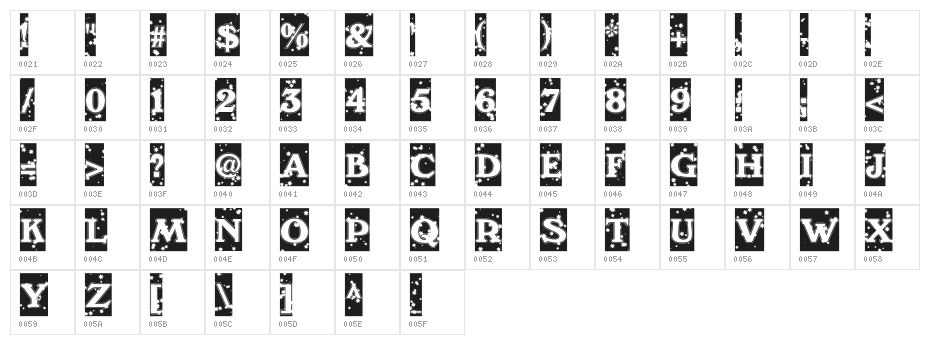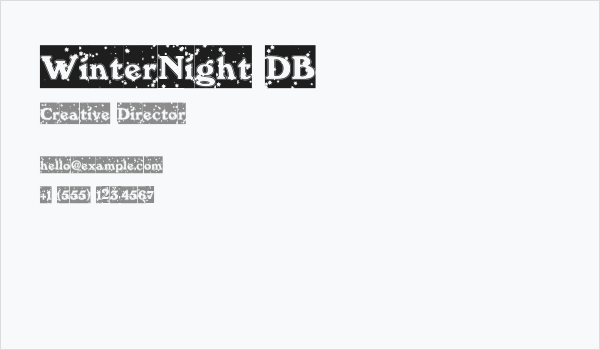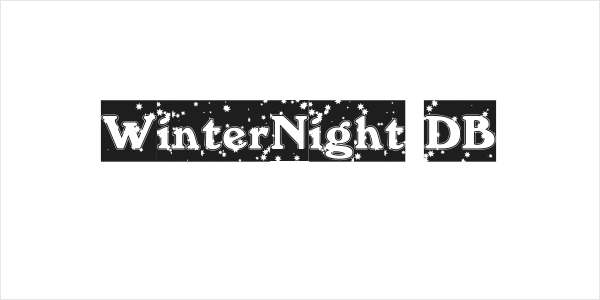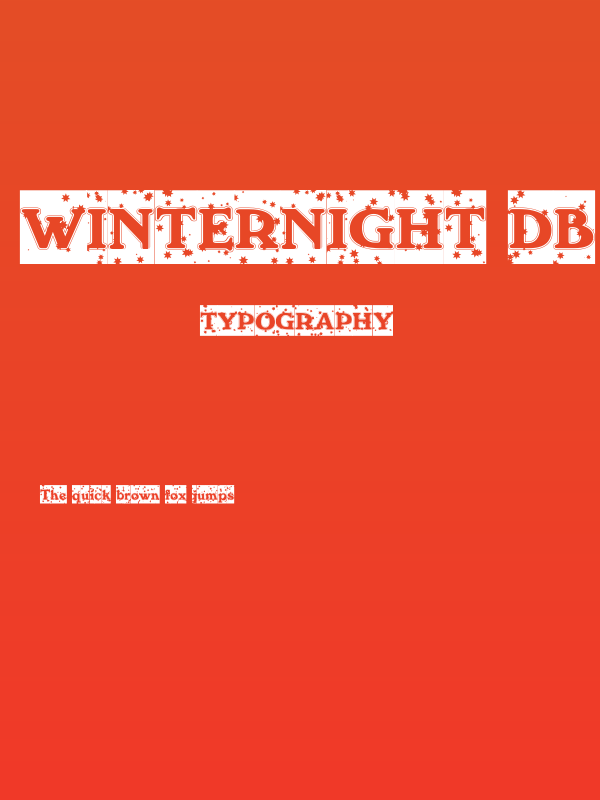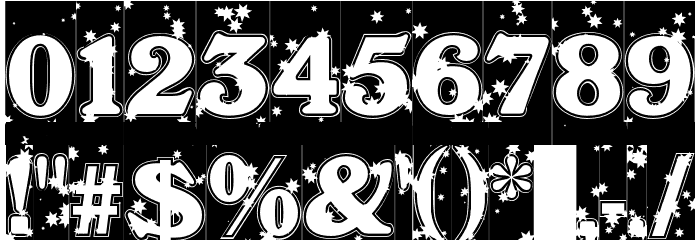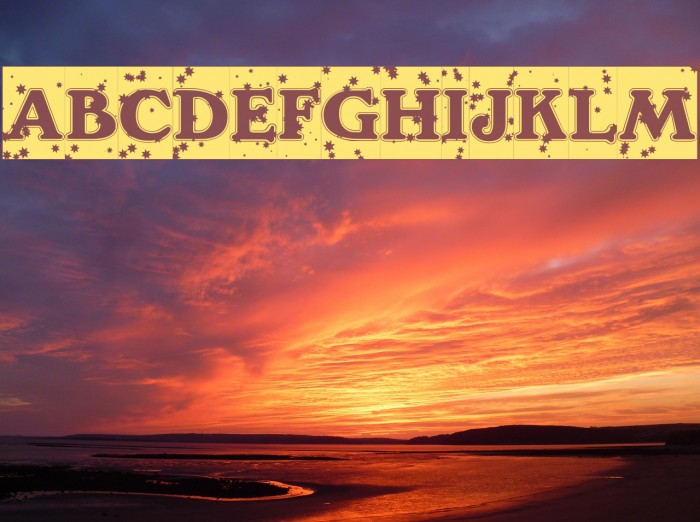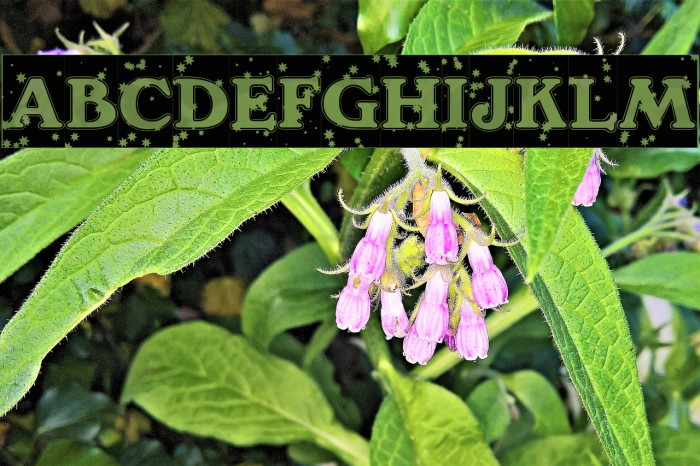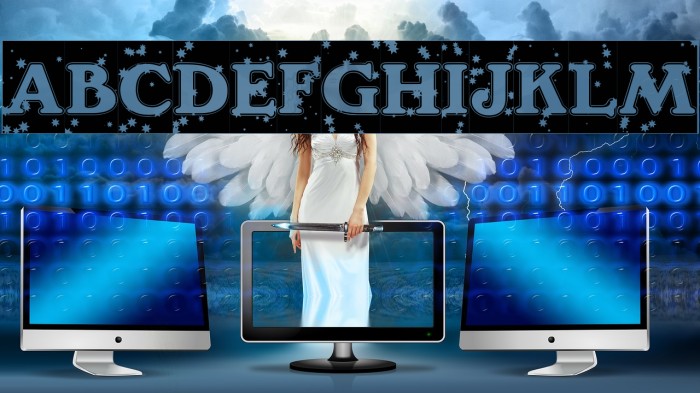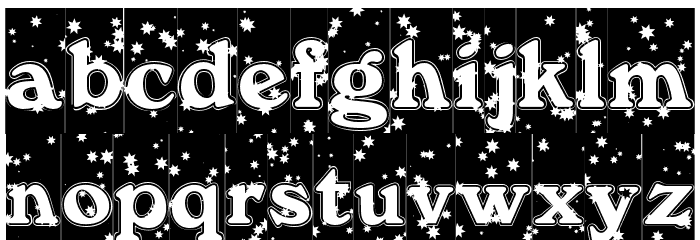
WinterNight DB Font
WinterNight DB Description
This decorative font features a playful and whimsical design, with each character adorned by a scattering of stars. The bold, serif letters have a festive and lively appearance, making them ideal for holiday-themed projects. The uppercase and lowercase letters maintain a consistent style, with strong, thick strokes and a slightly rounded finish. The numbers and special characters are equally embellished, ensuring a cohesive look across all text elements. The overall design is eye-catching and perfect for creating a magical, wintery atmosphere.